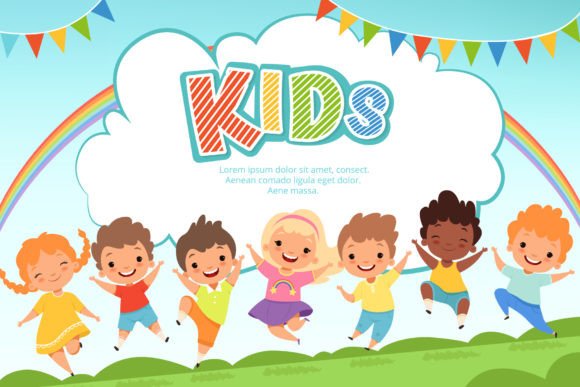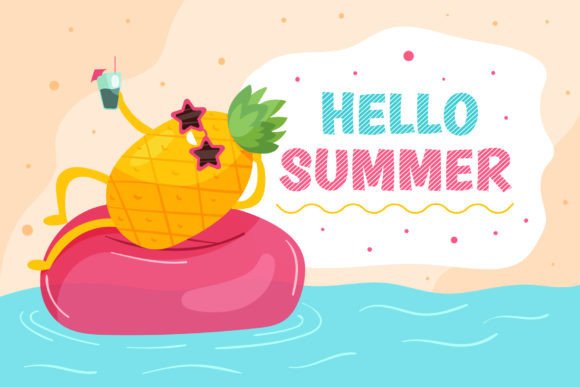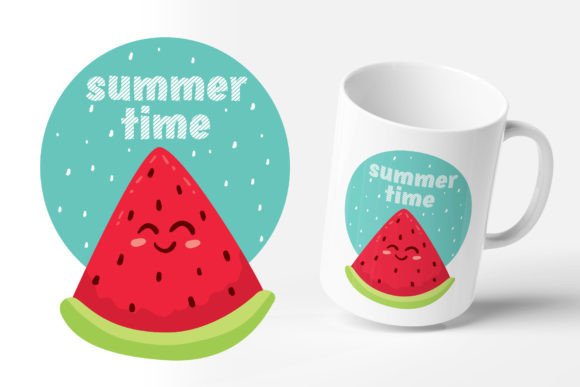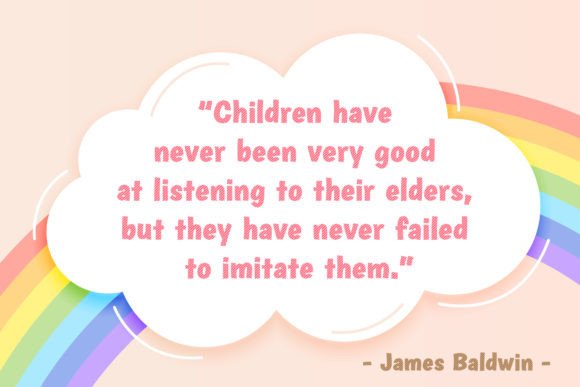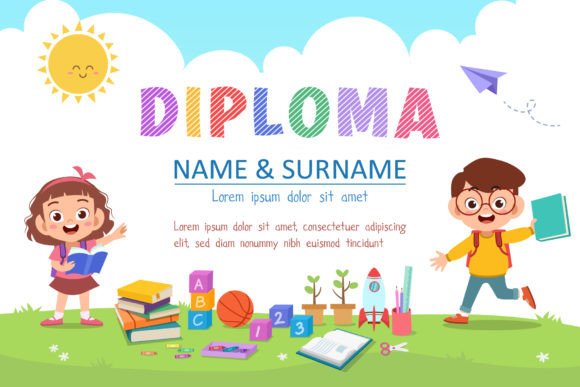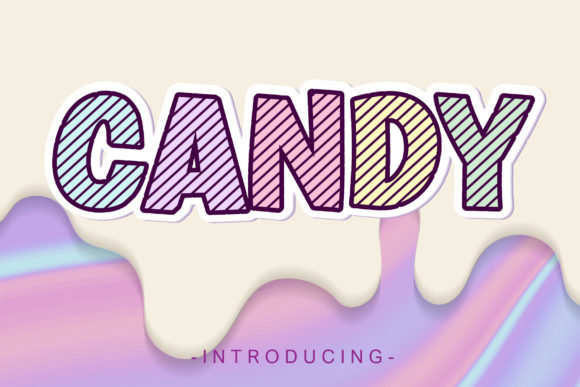
Candy Font: The Sweetest Addition to Your Font Library
Are you a designer or crafter looking for a font that can add a touch of fun and playfulness to your creations? Look no further than Candy Font! This adorable display font is perfect for cartoon titles, subtitles, and more. In this article, we’ll dive into the features and benefits of Candy Font, and explore how it can elevate your designs to the next level.
What is Candy Font?
Candy Font is a cute and fun display font designed to bring a smile to your face. Its playful and whimsical design makes it perfect for a variety of creative projects, from children’s books and educational materials to social media graphics and party invitations. With its bold and colorful appearance, Candy Font is sure to grab attention and add a touch of sweetness to your designs.
Key Features of Candy Font
• Cute and playful design: Candy Font features a unique and charming design that’s sure to delight audiences of all ages.
• Display font: This font is specifically designed for display purposes, making it perfect for titles, subtitles, and headings.
• Cartoon-inspired: Candy Font’s cartoon-inspired design makes it ideal for projects that require a playful and fun touch.
• Versatile: Whether you’re working on a children’s book, a social media graphic, or a party invitation, Candy Font is a versatile choice that can adapt to any topic or theme.
Benefits of Using Candy Font
So why should you add Candy Font to your font library? Here are just a few benefits of using this delightful font:
• Adds a touch of fun and playfulness: Candy Font’s playful design can instantly add a touch of fun and whimsy to your creations.
• Enhances creativity: With its bold and colorful appearance, Candy Font can inspire creativity and help you think outside the box.
• Perfect for kids’ projects: Candy Font’s cute and child-friendly design makes it perfect for projects aimed at kids, such as children’s books, educational materials, and kids’ party invitations.
• Great for social media graphics: Candy Font’s bold and eye-catching design makes it perfect for social media graphics, such as Facebook posts, Instagram stories, and Twitter headers.
How to Use Candy Font
Using Candy Font is easy! Here are a few tips to get you started:
• Pair with other fonts: Candy Font pairs well with other fonts, such as sans-serif fonts like Arial or Helvetica. Experiment with different combinations to find the perfect look for your project.
• Use for titles and subtitles: Candy Font is perfect for titles and subtitles, but you can also use it for body text if you want to add a playful touch to your project.
• Experiment with colors: Candy Font looks great in bright and bold colors, but you can also experiment with different shades and gradients to create a unique look.
In conclusion, Candy Font is a sweet and delightful addition to any font library. Its playful and whimsical design makes it perfect for a variety of creative projects, from children’s books and educational materials to social media graphics and party invitations. With its bold and colorful appearance, Candy Font is sure to grab attention and add a touch of fun to your designs. So why not give it a try and see how it can elevate your creations to the next level?